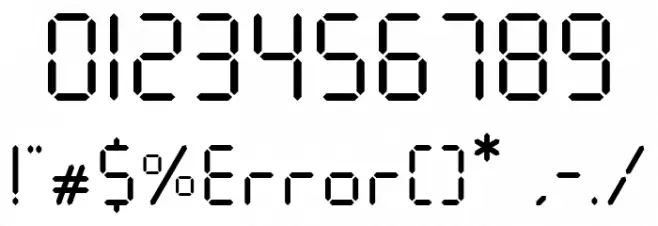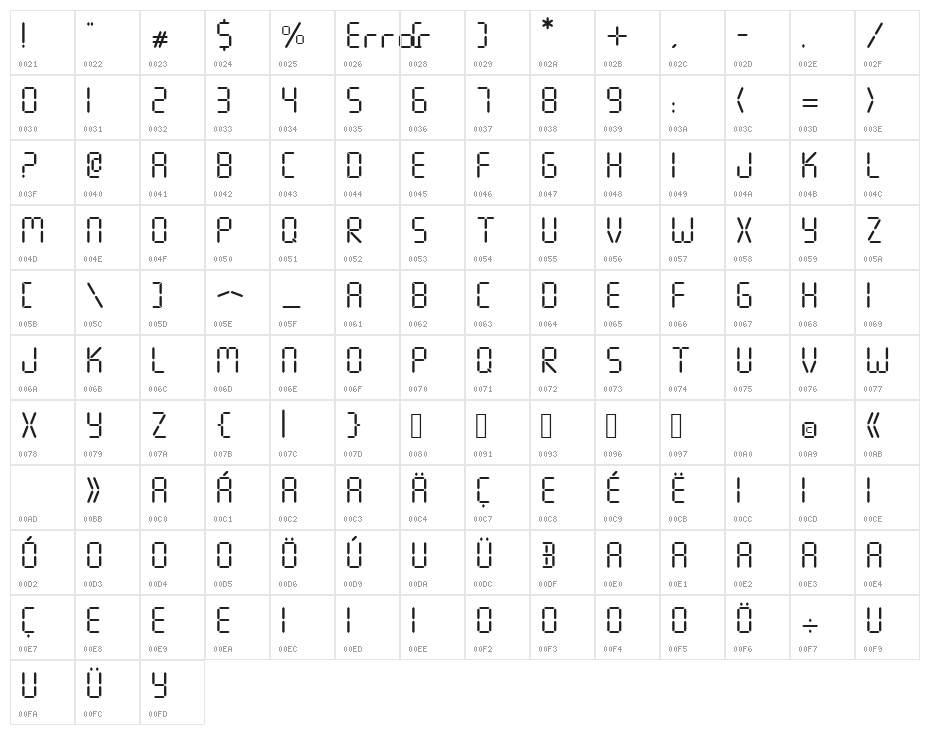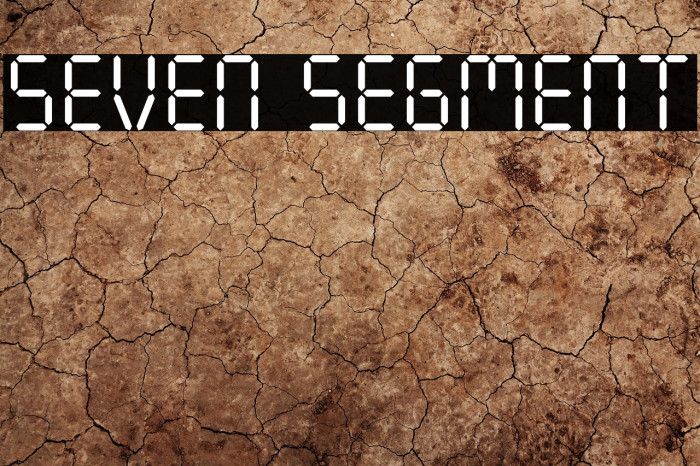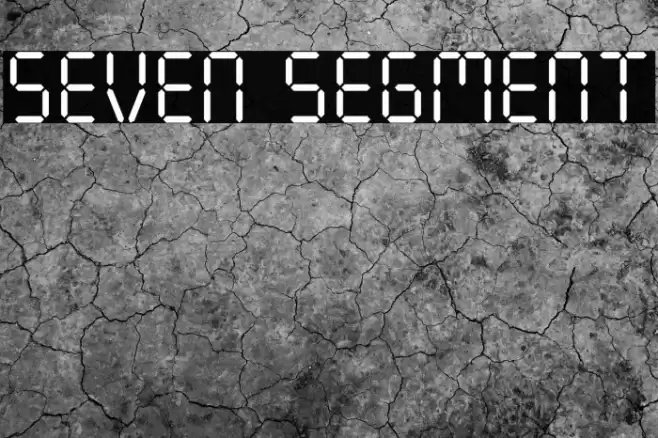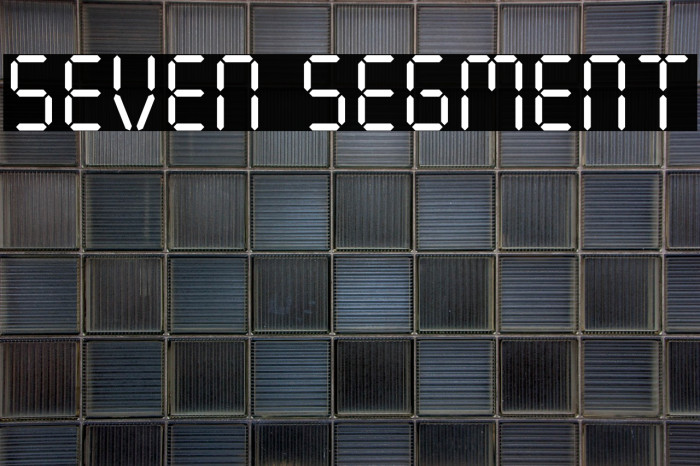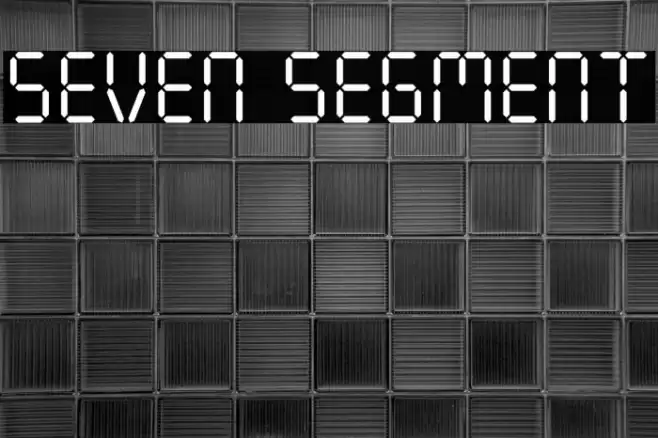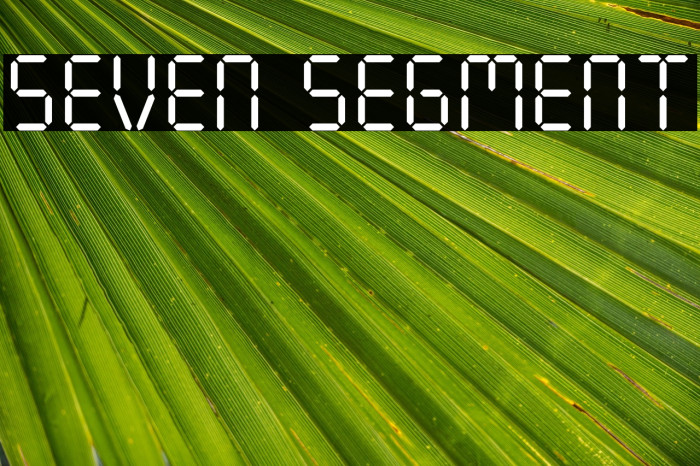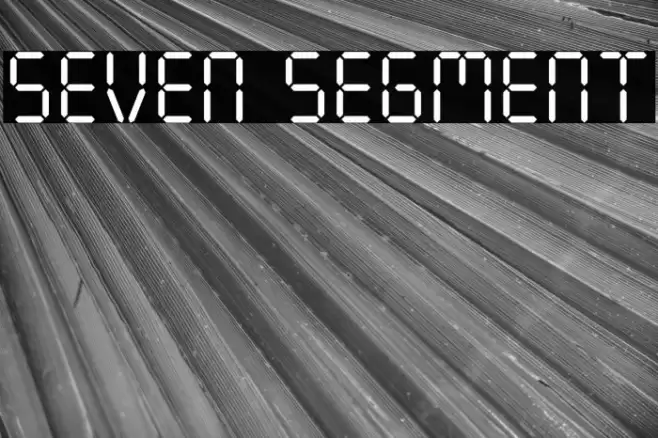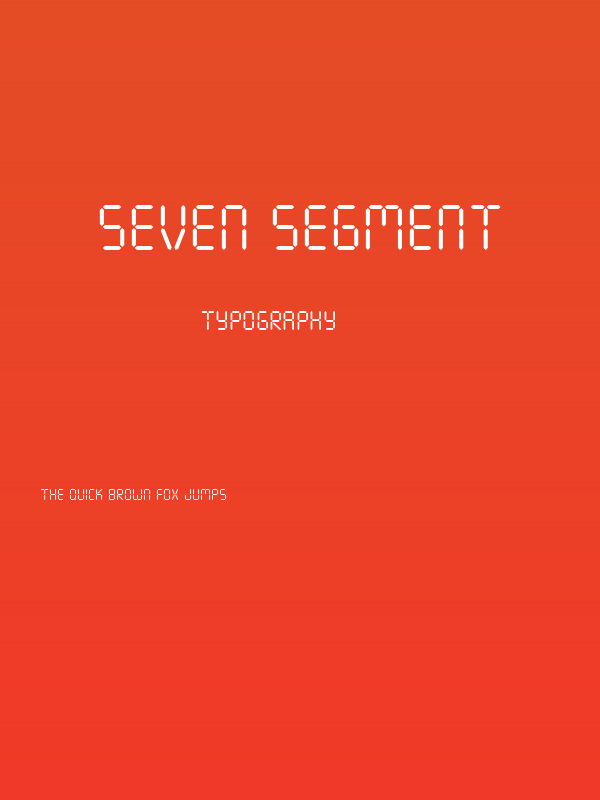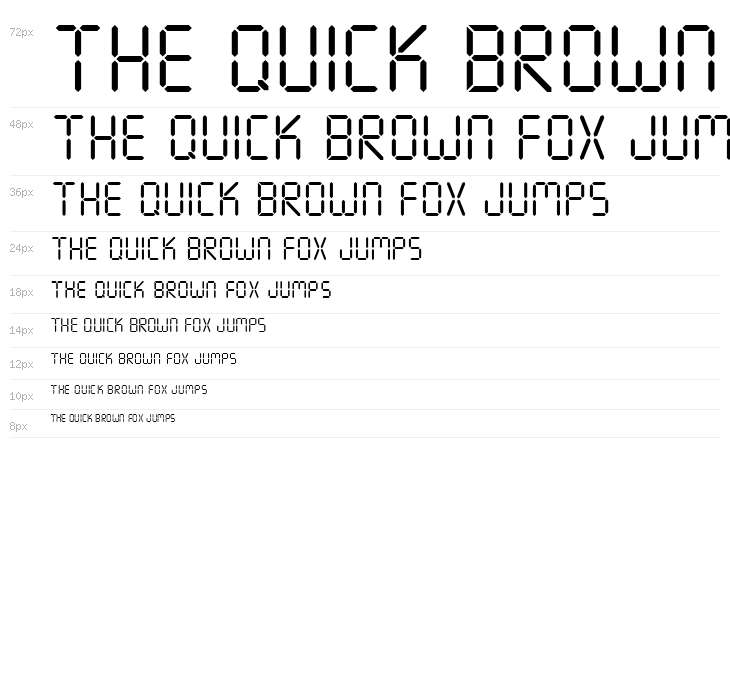
Seven Segment Font
Seven Segment Description
This font mimics the appearance of digital seven-segment displays commonly found in electronic devices like digital clocks and calculators. Each character is composed of straight lines and angles, creating a geometric and technical aesthetic. The design is highly legible and distinct, with a uniform stroke width that maintains consistency across all characters. The uppercase and lowercase letters are identical, emphasizing the digital theme. Numbers and special characters are also crafted in the same segmented style, ensuring a cohesive look throughout. This font's unique design makes it ideal for projects that require a modern, technological feel.
| Use Case | Headlines, Logos, Digital displays |
| Proposed Projects | Ideal for digital interfaces, tech-themed posters, electronic device branding, and retro-futuristic designs. |